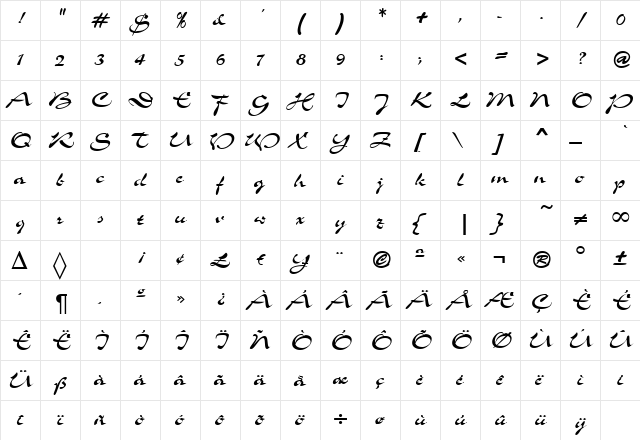
Script-S760 Regular
Design Context for Script-S760 Typeface
Script-S760 flows with the natural rhythm of handwritten lettering, making it ideal for designs that call for warmth and personal expression.
Font Pairing: Combine Script-S760 with a simple geometric sans for maximum contrast — the tension between flowing curves and clean structure is a classic typographic pairing.
Pro Tip: Use Script-S760 for short runs of text — names, titles, or taglines. Extended body copy in script faces tires the eye quickly.